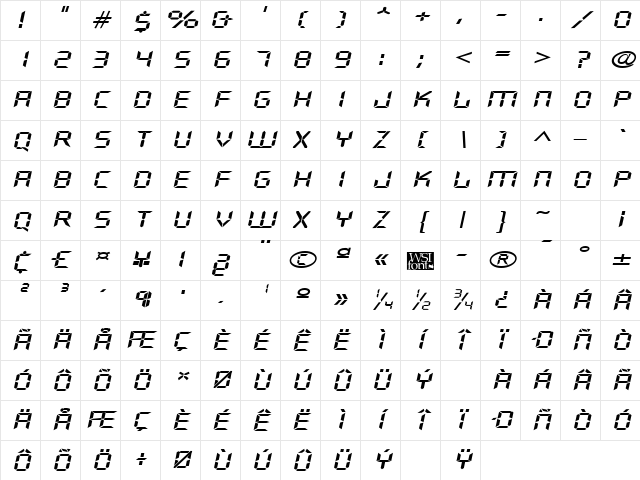
Complete DigifaceWide kursiv glyph index. Displaying only characters natively supported by DigifaceWide kursiv font.
DigifaceWide is a composed and adaptable typeface that performs quietly and consistently across a wide range of design contexts. The slanted form adds forward momentum and visual energy.